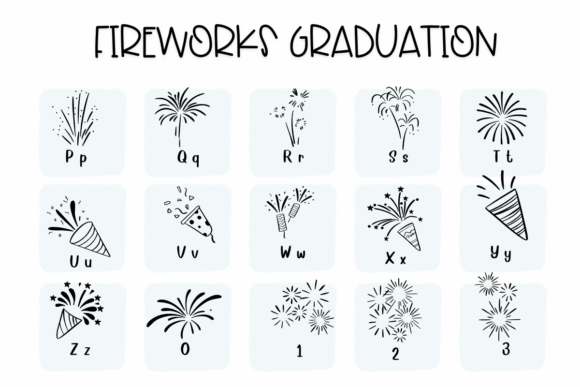
Fireworks Graduation Font
Fireworks Graduations a dingbats font with a festive style. This font can enhance your creative projects such as wedding invitations, DIY, crafts, decorations, logos, and many other creative ideas.